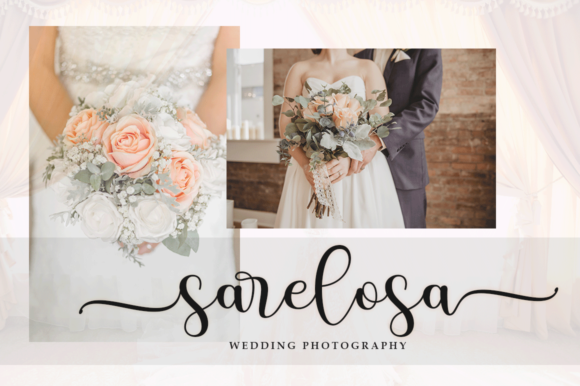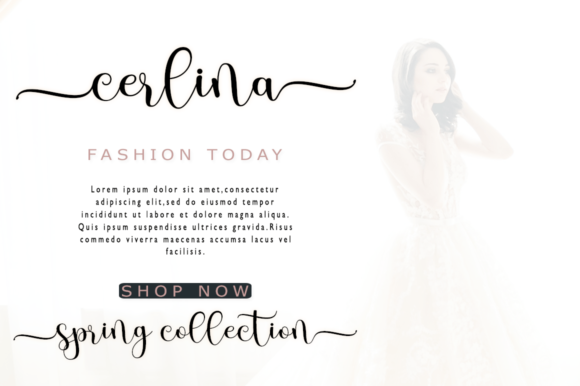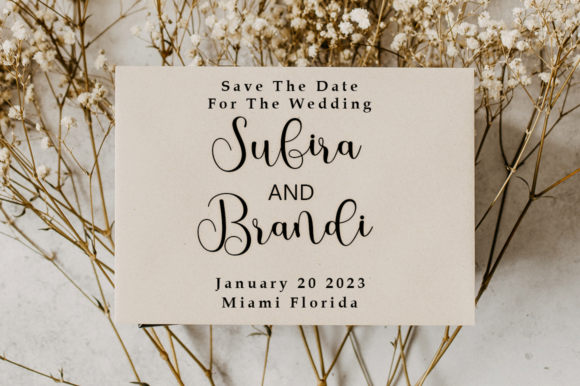
About Pratistha Script Font
Pratistha Script is a delightful and tender handwritten font that captures the essence of authenticity. Its inherent charm is bound to captivate your heart, making it the perfect choice for crafting exquisite wedding invitations, charming stationery art, captivating social media posts, and endearing greeting cards.
Embrace the genuine allure of Pratistha Script as it lends an air of sincerity to your creative endeavors. The soft and graceful strokes of this font evoke a sense of intimacy and warmth, effortlessly conveying the emotions and sentiments that your projects seek to convey. Each letter is imbued with a unique character, infusing your designs with a touch of personal connection that resonates with your audience.
Pratistha Script offers a wide spectrum of applications, allowing you to infuse your designs with its tender beauty across various platforms. Whether you’re designing wedding invitations that exude romance, creating stationary art that embodies elegance, crafting engaging social media posts that draw attention, or composing endearing greeting cards that leave a lasting impression, Pratistha Script is your partner in creativity.
The font’s PUA encoding further enhances its versatility by granting you effortless access to an array of glyphs and swashes. This feature empowers you to customize and embellish your designs, infusing them with intricate details and nuances that reflect your unique vision. With Pratistha Script, you can effortlessly enhance the visual appeal of your projects and create designs that are as personalized as they are stunning.
Incorporate Pratistha Script into your creative arsenal and experience the magic it brings to your designs. Its sweet and soft handwritten style not only adds aesthetic value but also conveys a sense of genuine connection, resonating with your audience on a heartfelt level. With Pratistha Script, you have the power to evoke emotions, tell stories, and create memorable experiences that linger long after the first glance.